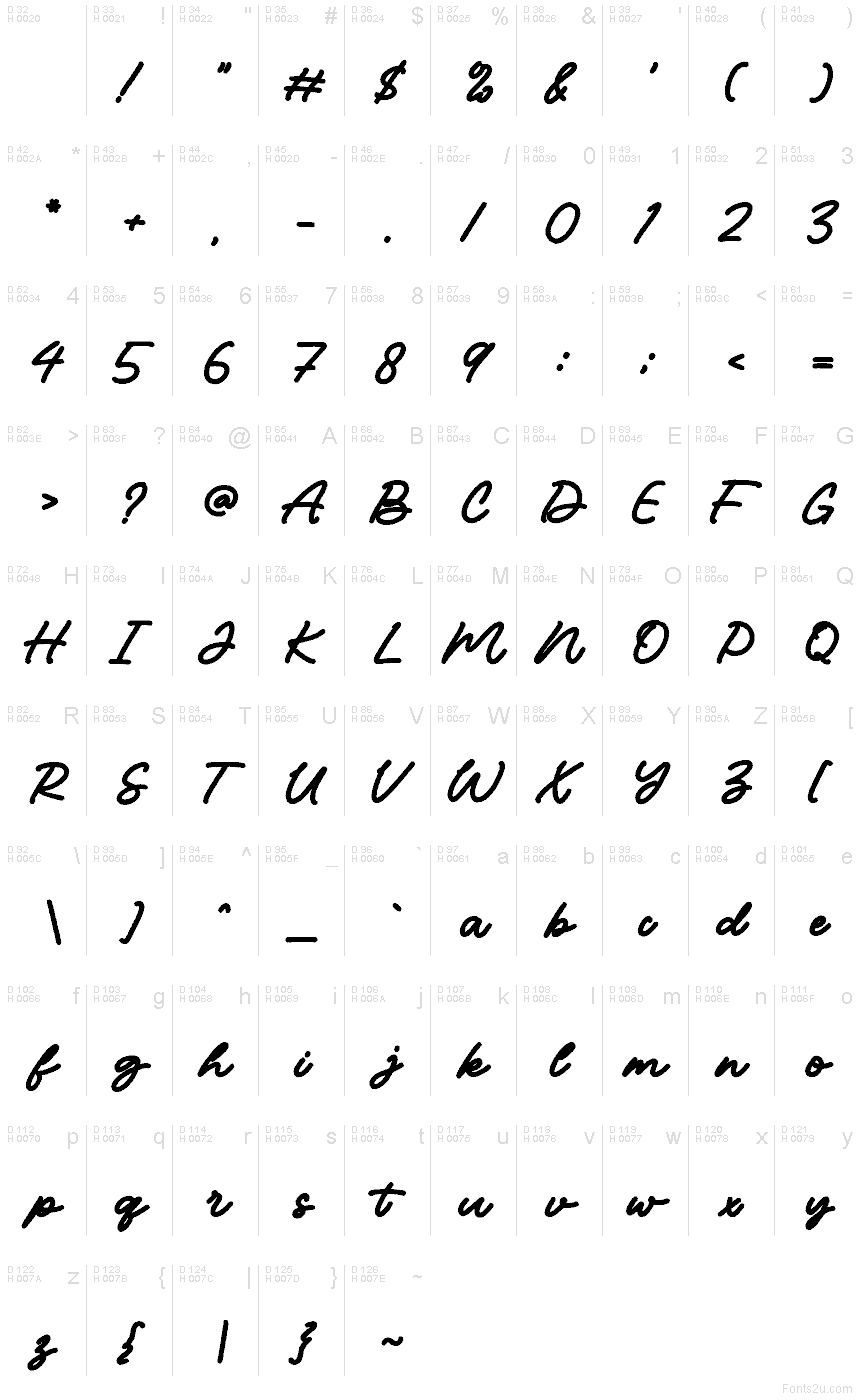
NCL Broton Onqtuops
NCL Broton Onqtuops font by Enxyclo Studio is a free handwritten script font. It solves the common “looks-handmade but stays readable” problem with swift, slanted strokes, juicy pressure shifts, and confident connections that don’t tangle. The inky texture and lively rhythm feel like a fresh signature on glossy paper—energetic, but controlled enough to scale.
Using NCL Broton Onqtuops, your headlines and marks snap to attention without losing warmth. It shines on logos, product packaging, social posts, café menus, event invites, and merch tags, where a human touch matters. Keep tracking a hair open for air, and pair this free font with a light, neutral sans to let the script do the talking.